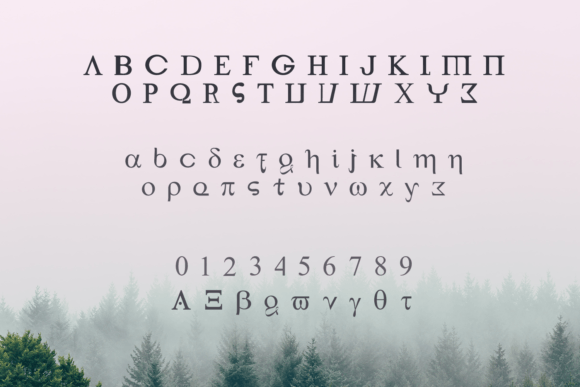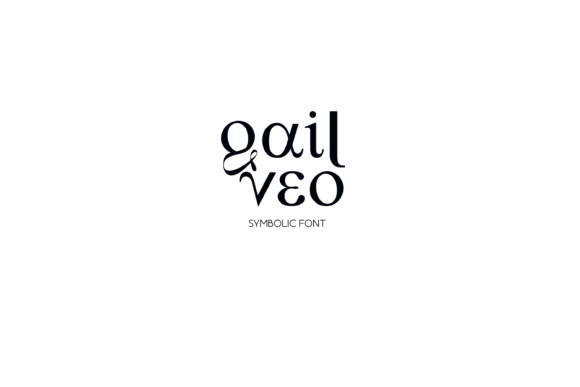
Gailveo Font: The Ultimate Game-Changer for Designers and Crafters
Are you tired of using the same old fonts in your designs? Look no further than the Gailveo Font, a cool and incredibly unique display font that is sure to take your creative projects to the next level. With its distinctive style and versatility, Gailveo is the perfect addition to any designer’s or crafter’s toolkit.
The Unique Characteristics of Gailveo Font
Gailveo Font is a one-of-a-kind display font that boasts a range of unique characteristics. Its letters are carefully crafted to create a sense of fluidity and movement, making it perfect for designs that require a touch of dynamism. The font’s style is both modern and edgy, with clean lines and a bold aesthetic that is sure to grab attention.
Why Use Gailveo Font in Your Designs?
So why should you choose Gailveo Font for your next design project? Here are just a few compelling reasons:
- Uniqueness: Gailveo Font is unlike any other font on the market. Its distinctive style ensures that your designs will stand out from the crowd and leave a lasting impression.
- Versatility: Whether you’re designing a logo, a brochure, or a website, Gailveo Font is the perfect choice. Its versatility ensures that it can be used in a wide range of design applications.
- Ease of use: Gailveo Font is incredibly easy to use, even for those who are new to design. Its clean lines and simple aesthetic make it easy to pair with other fonts and design elements.
How to Use Gailveo Font in Your Designs
Using Gailveo Font in your designs is incredibly easy. Here are a few tips to get you started:
- Pair it with other fonts: Gailveo Font pairs perfectly with a range of other fonts, from elegant scripts to bold sans-serifs. Experiment with different combinations to find the perfect look for your design.
- Experiment with colors: Gailveo Font looks amazing in a range of colors, from bold and bright to subtle and muted. Try out different color combinations to find the one that works best for your design.
- Use it as a statement piece: Gailveo Font is perfect for making a statement in your designs. Use it as a headline or title font to grab attention and draw the eye.
The Benefits of Using Gailveo Font for Crafters
Gailveo Font isn’t just for designers – it’s also perfect for crafters who want to add a personal touch to their projects. Here are just a few benefits of using Gailveo Font in your crafting projects:
- Add a personal touch: With Gailveo Font, you can add a personal touch to your crafting projects and make them truly unique.
- Create custom signs: Gailveo Font is perfect for creating custom signs, from welcome signs to inspirational quotes.
- Make your projects stand out: Gailveo Font is sure to make your crafting projects stand out from the crowd. Its unique style ensures that your projects will be noticed and admired.
In conclusion, Gailveo Font is a cool and incredibly unique display font that is sure to take your design and crafting projects to the next level. With its distinctive style, versatility, and ease of use, Gailveo is the perfect addition to any designer’s or crafter’s toolkit. So why wait? Add Gailveo Font to your creative ideas and be astounded by the outcome generated!